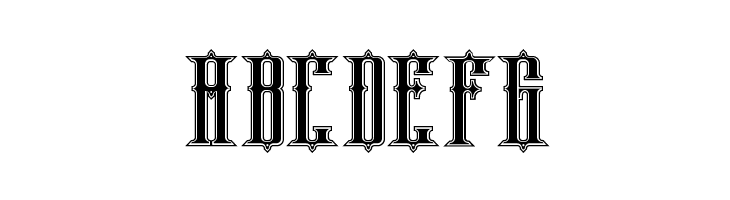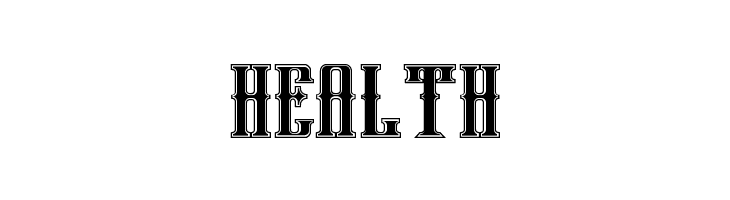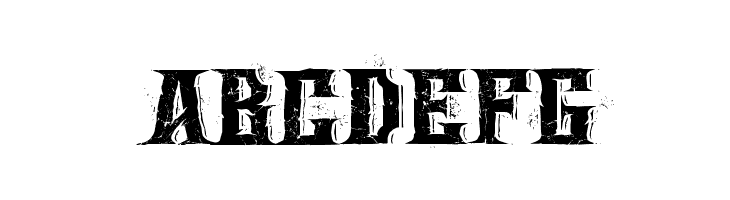
( Fonts by Fabian Kirst )
A bold, angular Blackletter-inspired font with a strong, authoritative presence.
( Fonts by Peter Olexa )
A bold, decorative font with a vintage Western flair and intricate detailing.
( Fonts by Irina ModBlackmoon )
A bold, distressed font with a gothic, grunge-like style.